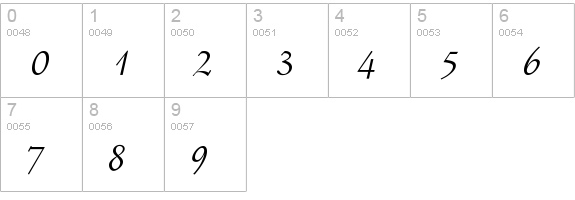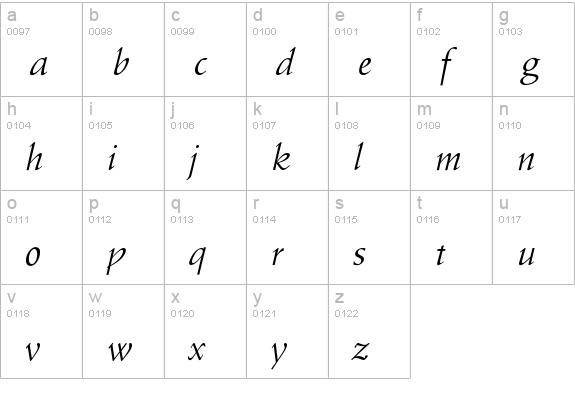
SchneidlerEF-RomanItalic Font Details
The SchneidlerEF-RomanItalic font is a stunning and versatile typeface that embodies elegance and sophistication. With its beautifully slanted italic design, this font exudes a sense of grace and charm, making it perfect for adding a touch of refinement to any project. Crafted with meticulous attention to detail, the SchneidlerEF-RomanItalic font showcases delicate, sweeping curves and subtle variations in stroke weight, resulting in a truly captivating visual experience. Its timeless appeal and classic aesthetics make it a go-to choice for designers and creatives looking to elevate their work to new heights. This font offers a seamless blend of tradition and modernity, effortlessly combining the elegance of a traditional serif with a contemporary twist. It effortlessly captures the essence of traditional calligraphy, while still maintaining a sense of contemporary flair. One of the most remarkable aspects of the SchneidlerEF-RomanItalic font is that it is freely available to download at FontsMarket.com. This means that designers and enthusiasts alike can access this exquisite typeface without any cost, allowing them to fully explore its potential and unleash their creativity. Whether you are working on a branding project, a wedding invitation, a book cover, or any other design endeavor that calls for a touch of sophistication, the SchneidlerEF-RomanItalic font is sure to make a lasting impression. Its versatility and timeless appeal ensure that it will effortlessly elevate any project, making it a valuable addition to any designer's toolkit. With its graceful curves, impeccable craftsmanship, and the added bonus of being freely available, the SchneidlerEF-RomanItalic font is a must-have for anyone seeking to infuse their designs with an air of elegance and distinction. Download it for free at FontsMarket.com and unlock the power of this remarkable typeface today.